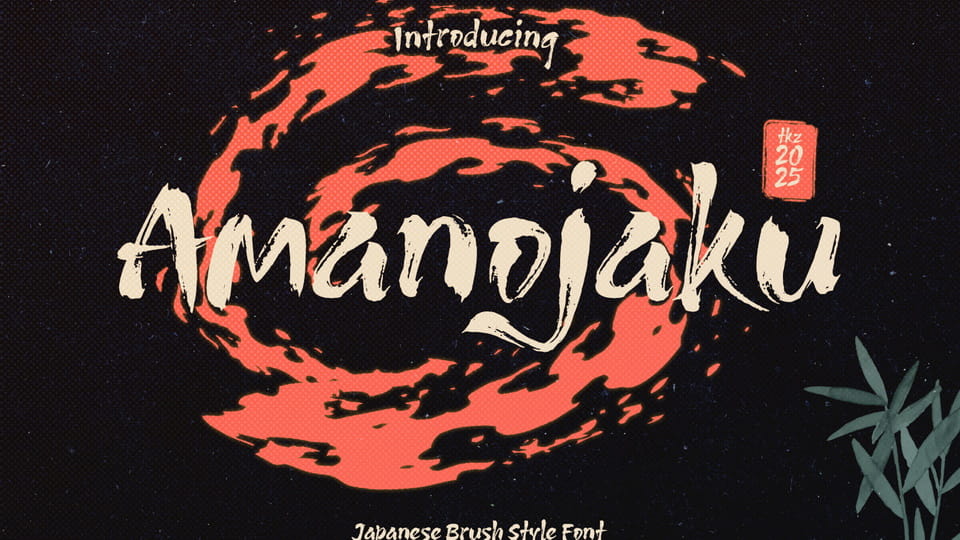
Download Amanojaku font, a traditional hand-drawn brush brush inspired by a rebellious Japanese folklore creature. It blends traditional brush strokes with a modern twist.
Designer: Tkzgraphic